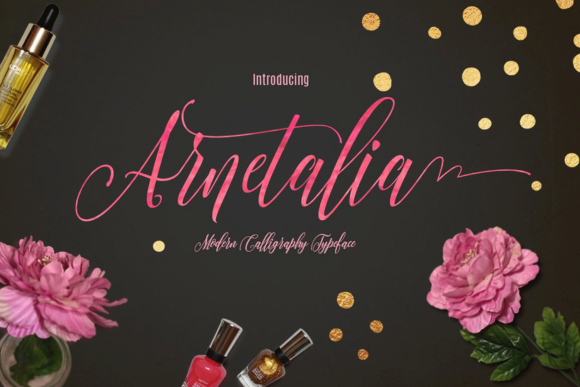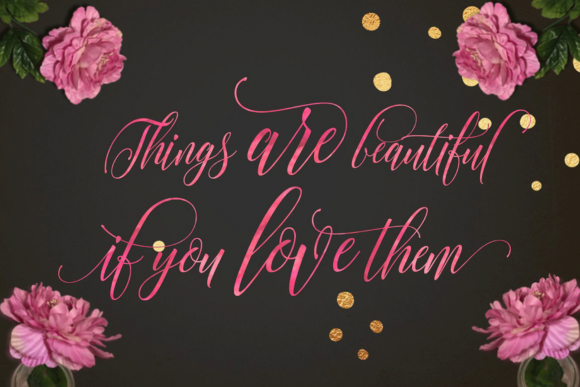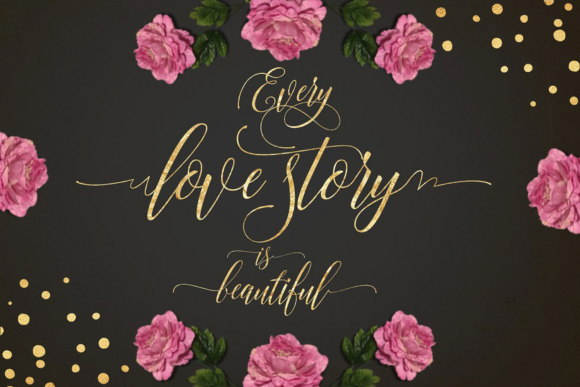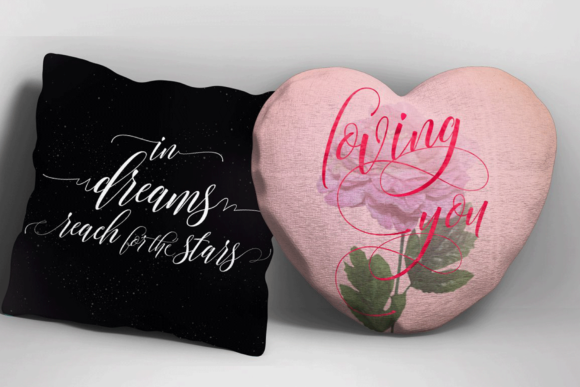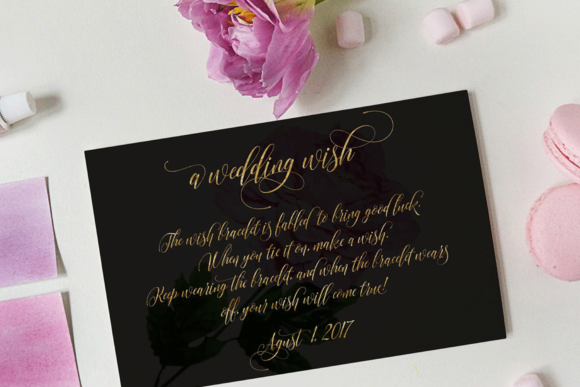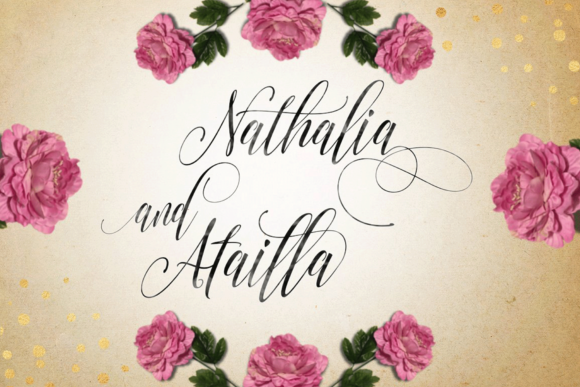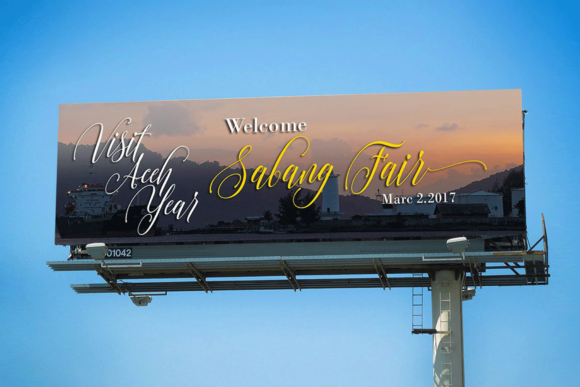
Arnetalia Font
About Arnetalia Font
Arnetaliais is a lovely handwritten font. It is perfect for invitations, posters, logos, book covers and much more!
Include this font in your next project and give it a modern look.